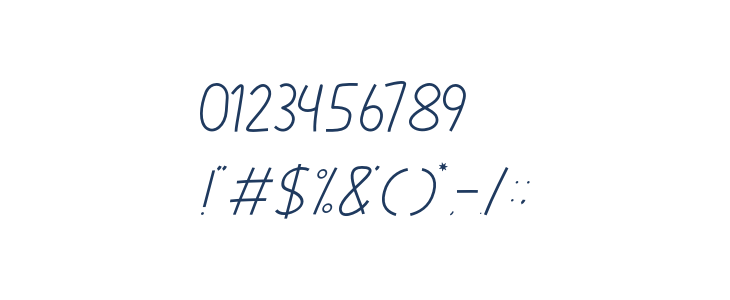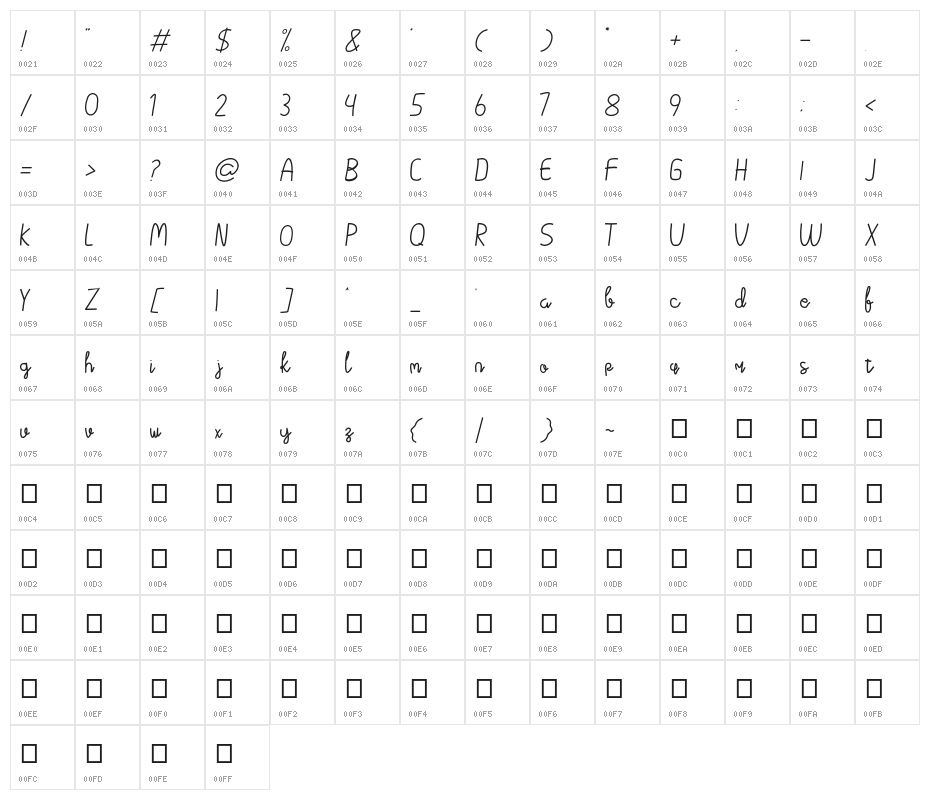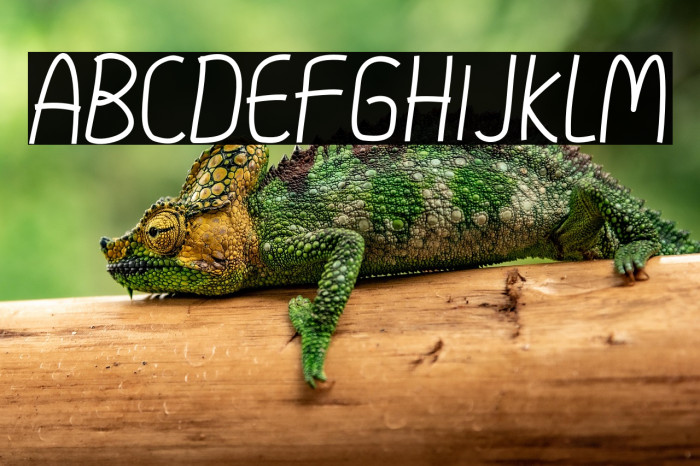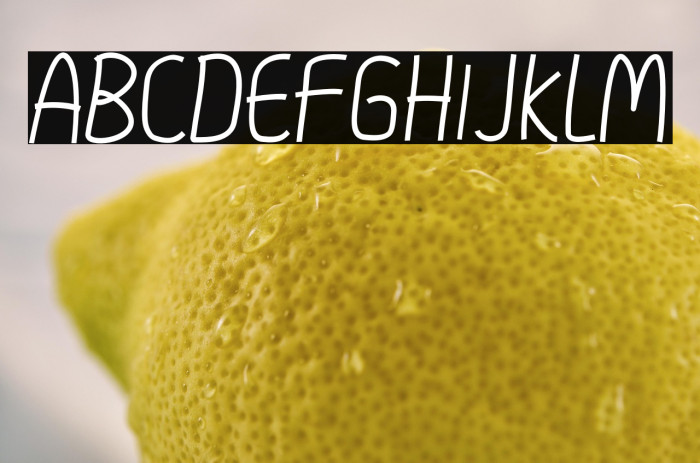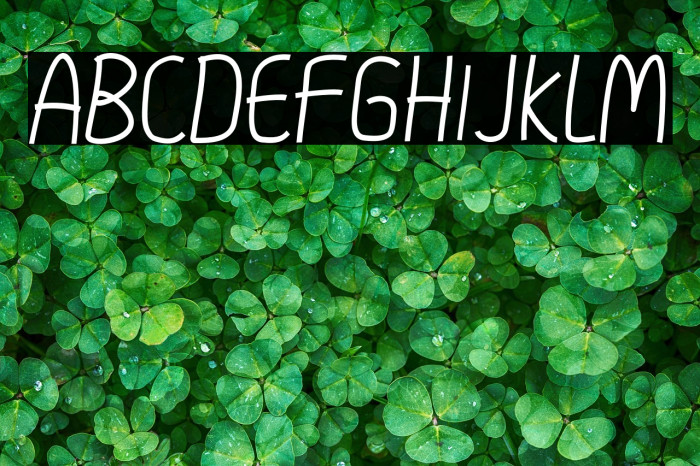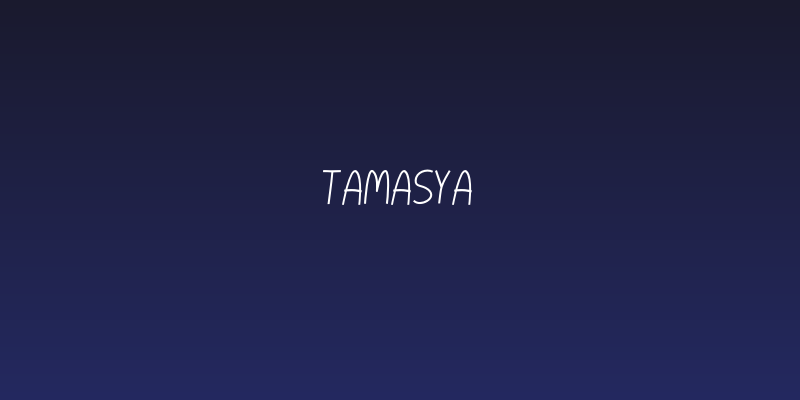
Tamasya Font
Tamasya Description
This font features a playful and casual handwritten style, characterized by its smooth, flowing lines and slightly irregular shapes. The uppercase letters are tall and slender, with a slight tilt that adds a dynamic feel. The lowercase letters maintain a consistent flow, enhancing the handwritten effect. The numerals are clear and easy to read, matching the overall style. Special characters are well-integrated, maintaining the font's cohesive look. This font's informal and friendly appearance makes it suitable for creative projects.
Overall StyleCasual
Use CaseLogos, Headlines, Creative projects
Proposed ProjectsIdeal for greeting cards, invitations, personal branding, and creative projects.